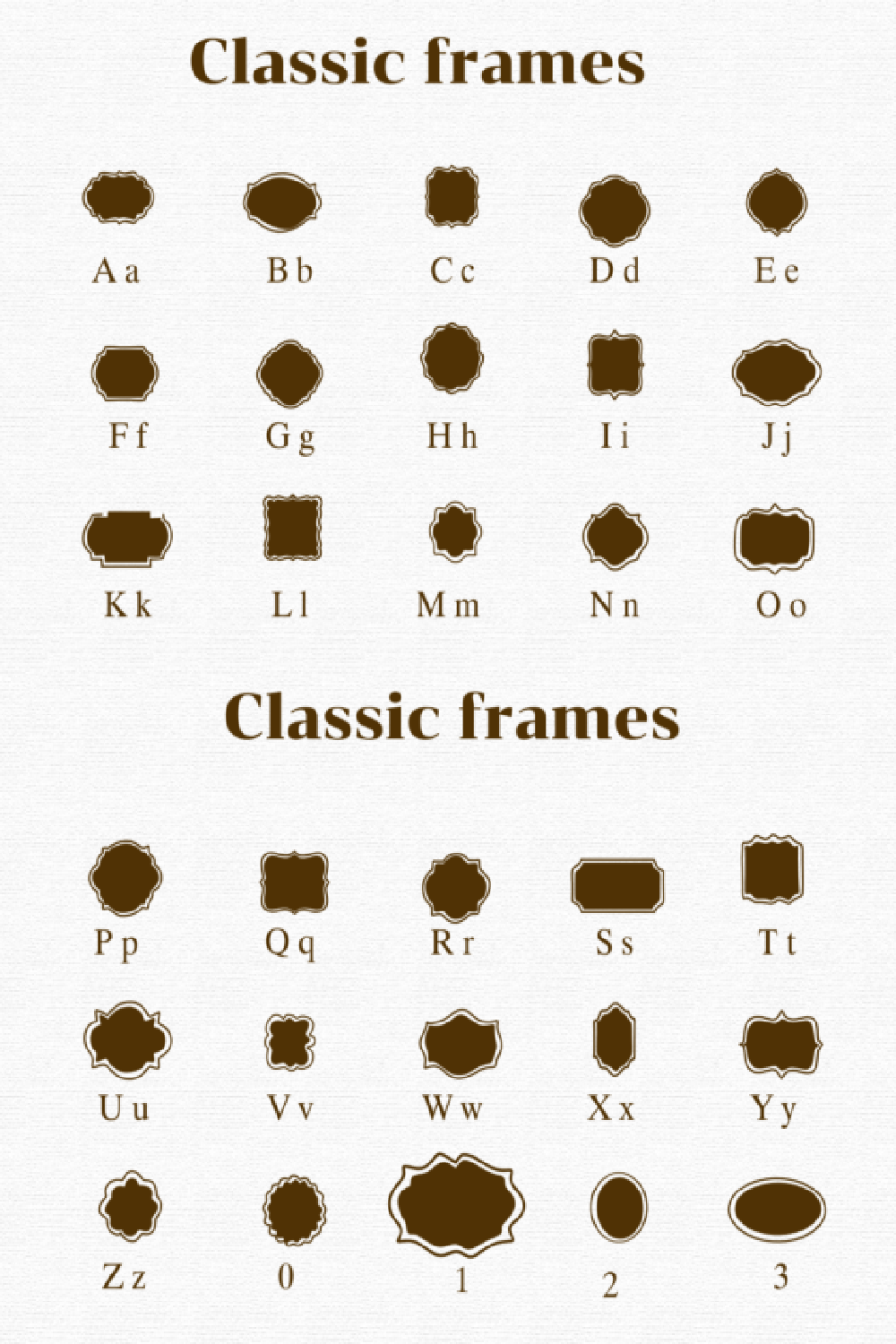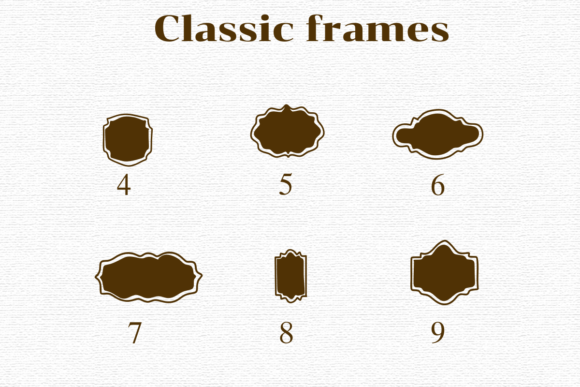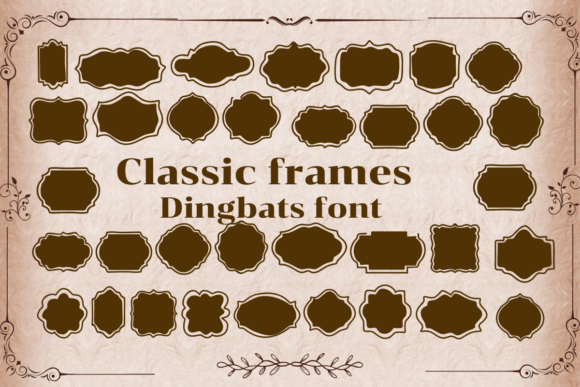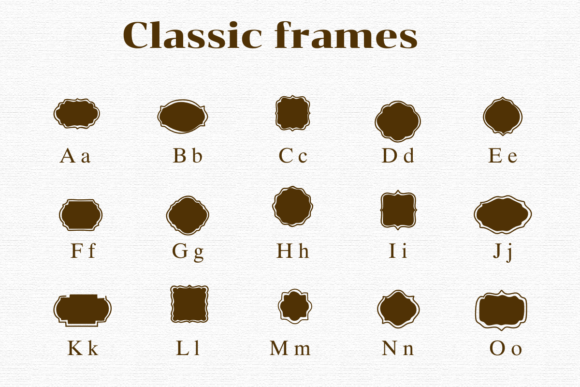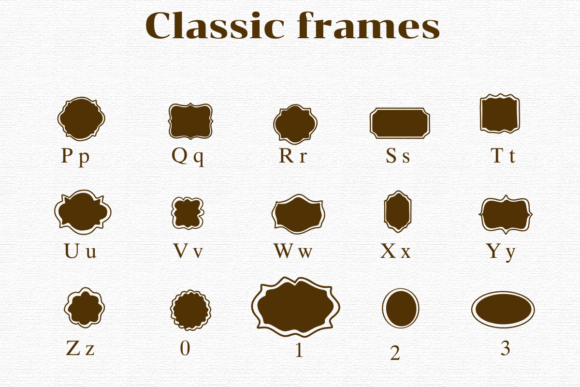
Classic Frames Font
About the Classic Frames Font
Add a touch of class to your work with the Classic Frames Font, a truly exceptional typeface. Classic Frames is a dingbat font that features a variety of decorative borders and frames. Instead of letters and numbers, each character key displays a unique design element that you can use to add stylish borders and accents to your projects. It’s perfect for adding an elegant touch to invitations, cards, and other creative works.
Classic Frames excels in applications requiring decorative accents, such as wedding invitations, certificates, or packaging for luxury goods. Its elegant nature makes it ideal for creating visual dividers, highlighting key information, or adding a sophisticated frame to images and text blocks. However, it is unsuitable for body text or UI elements due to its lack of alphanumeric characters.
The font’s personality is undeniably elegant and refined. It projects a sense of high quality and sophistication. To complement this, pairing it with a clean sans-serif like Helvetica Neue for body text, or a classic serif like Garamond for more traditional applications, would create a balanced and visually appealing result.
Consider using a script font like Great Vibes for a more romantic or whimsical feel, or a geometric sans-serif like Futura for a modern contrast. Avoid pairing it with fonts that are overly playful or informal, as this might detract from its inherent sophistication.